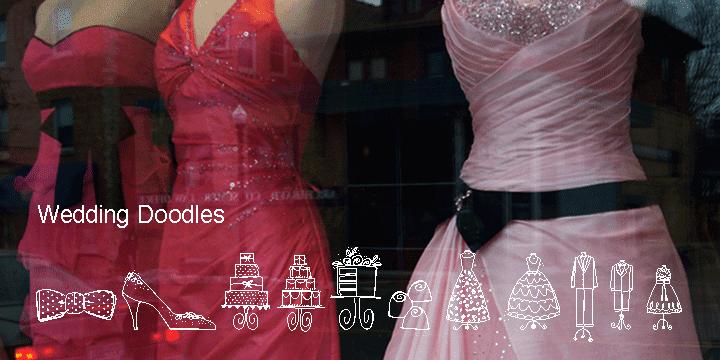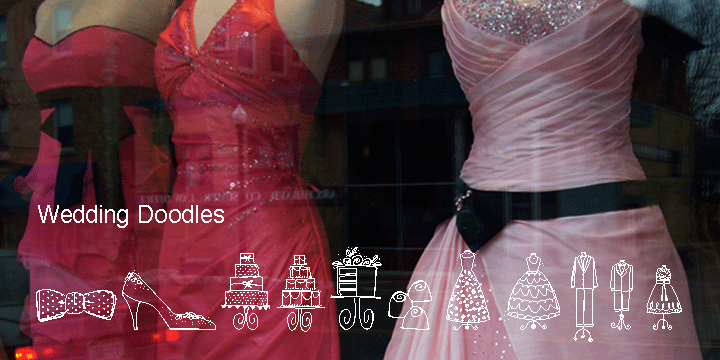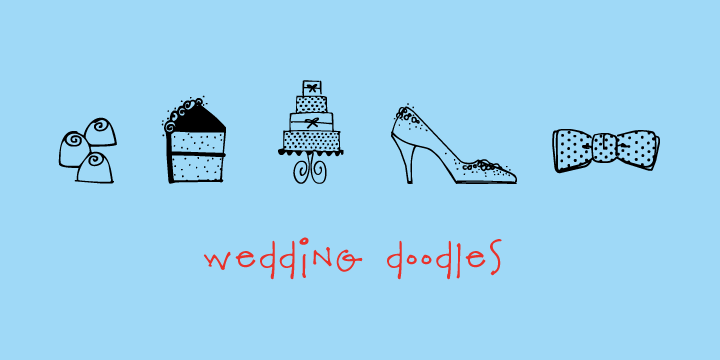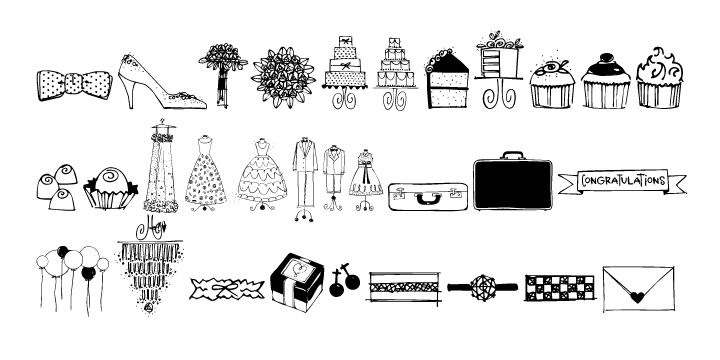
Wedding Doodles (1 font)
A font of 31 wedding icons... bow tie, shoe, bouquet, cakes, invitation, cupcakes, bon bons, wedding dress, tux, ring bearer, flower girl, suitcases, congratulations banner, balloons, garter, gift, cuff links, wedding bands, diamond ring.
Use for a wedding shower flyer or make your own gift card.